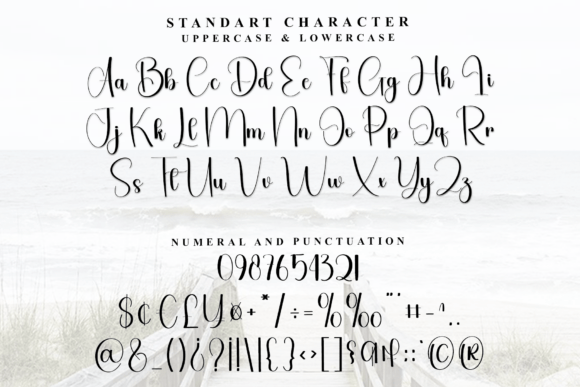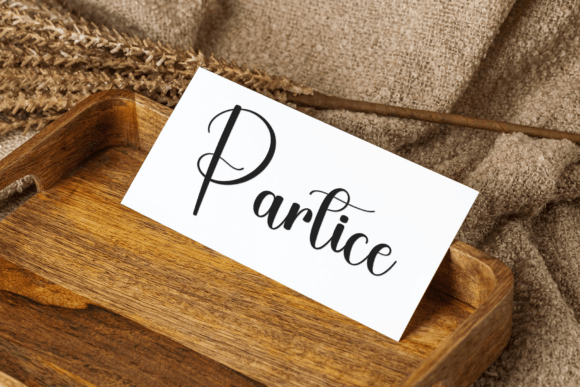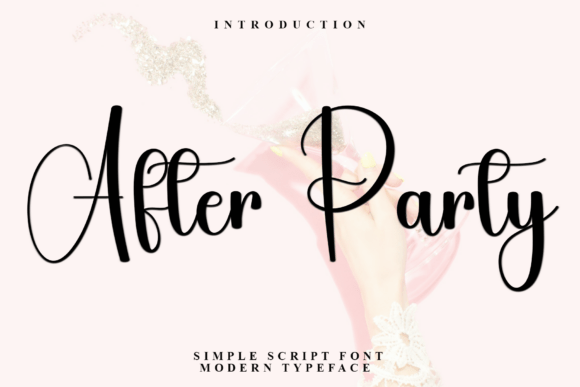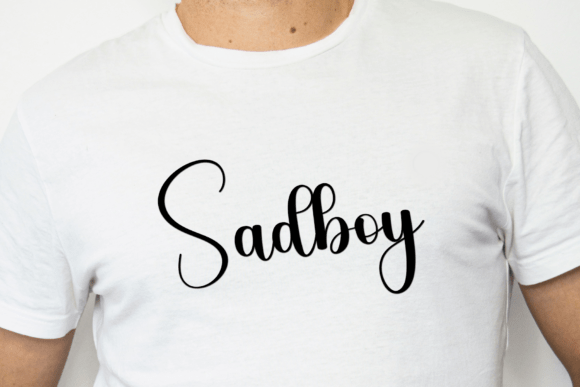
After Party Font: A Cute Display Font for Playful & Crafty Designs!
About the After Party Font
The After Party Font offers a perfect balance of form and function for your design needs. After Party is an adorable and playful display font. It will add an incredibly joyful touch to your crafting designs, school projects and anything else that may need a happy touch!